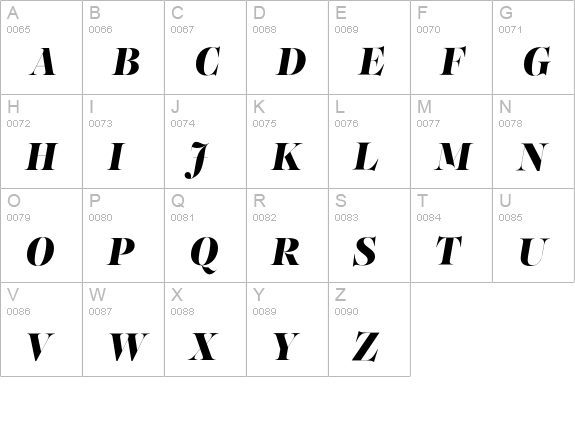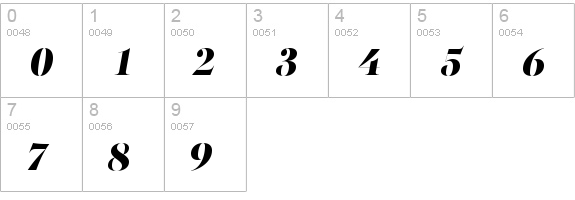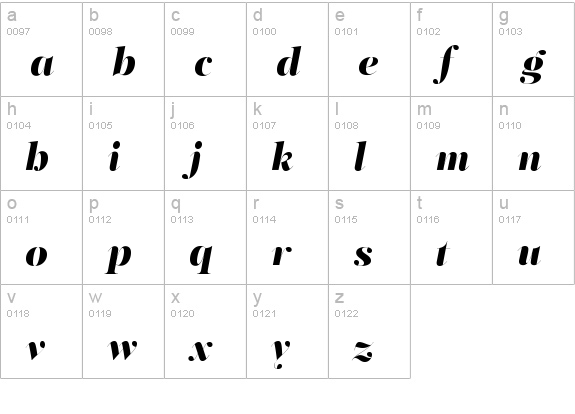
PFRegalFinessePro-BlackItalic is a bold and elegant font that exudes sophistication and finesse. With its sleek lines and stylish curves, this typeface is perfect for adding a touch of luxury to any design project. The italicized version of PFRegalFinessePro-Black adds a modern and dynamic flair to your text. The best part? PFRegalFinessePro-BlackItalic is available for free download at FontsMarket.com. Now you can elevate your designs with this premium font without breaking the bank. Whether you're working on a branding project, a magazine layout, or a website design, PFRegalFinessePro-BlackItalic is sure to make a statement. Download it now and unleash your creativity!